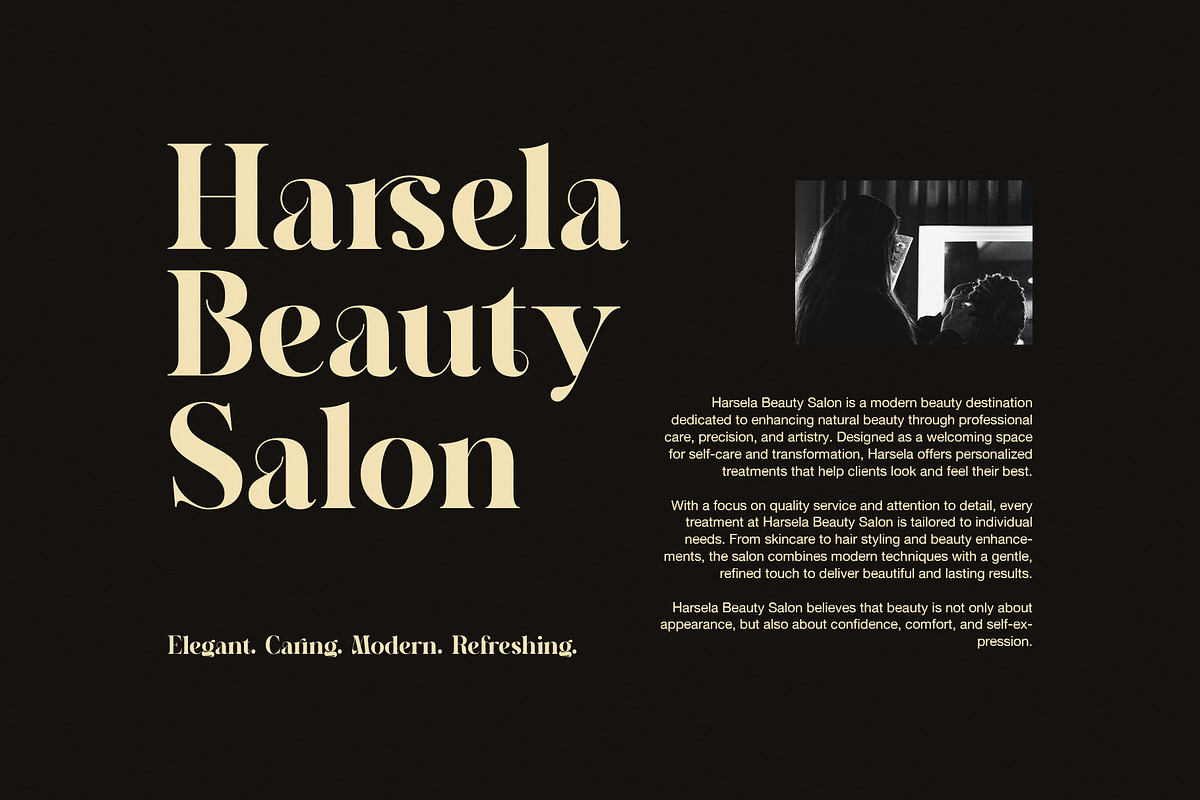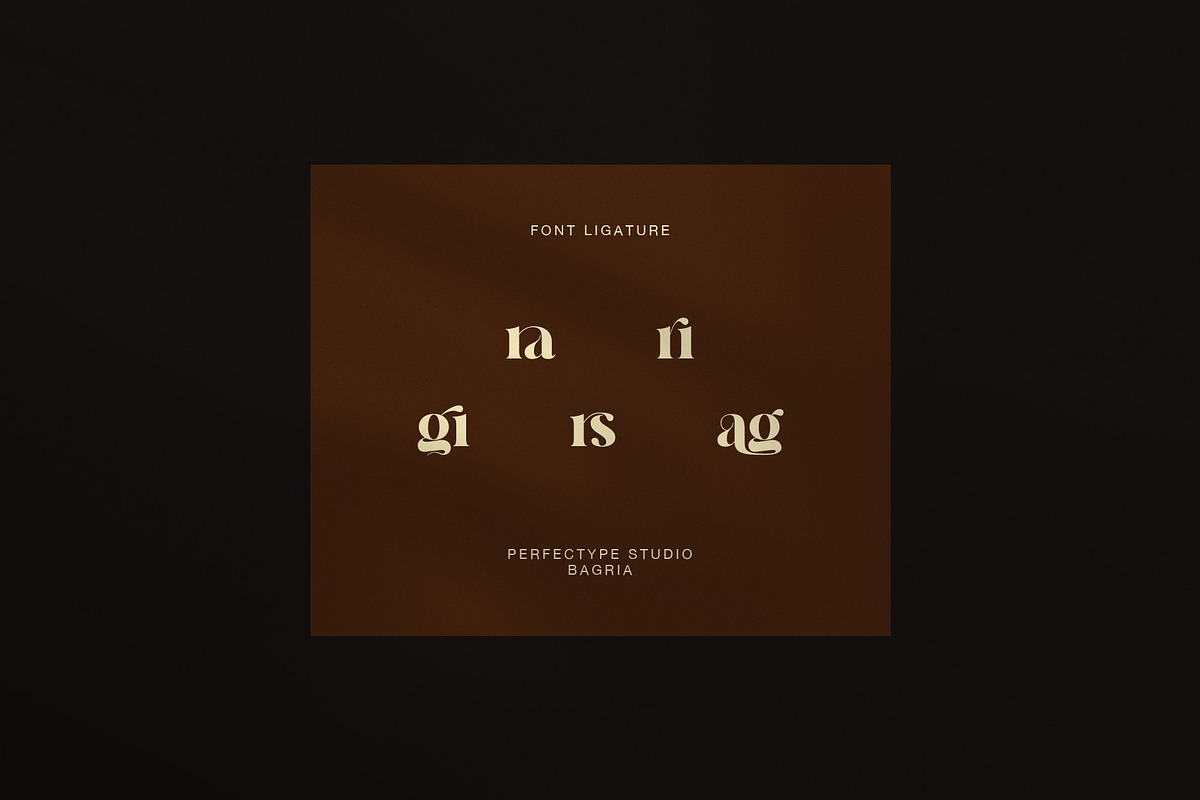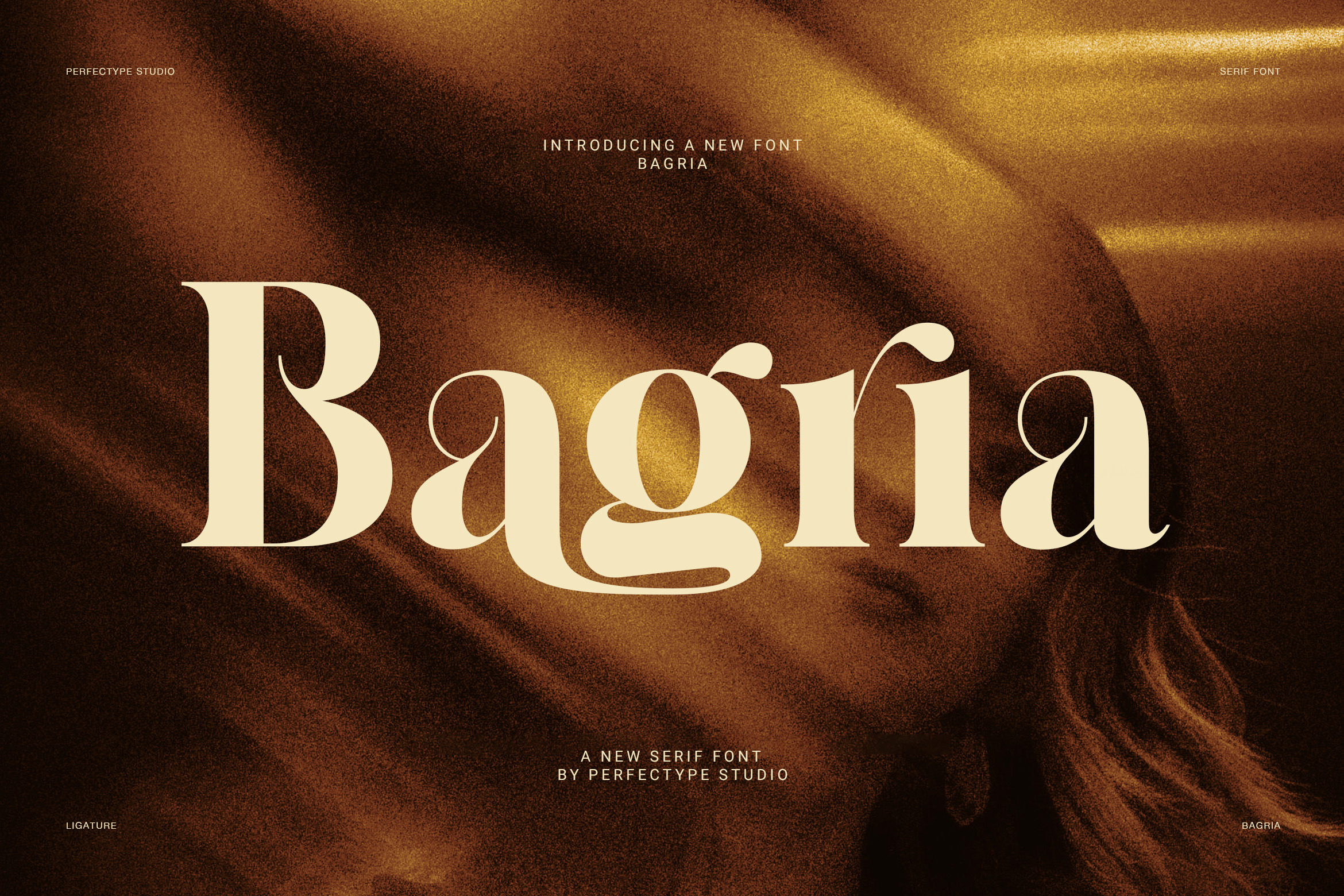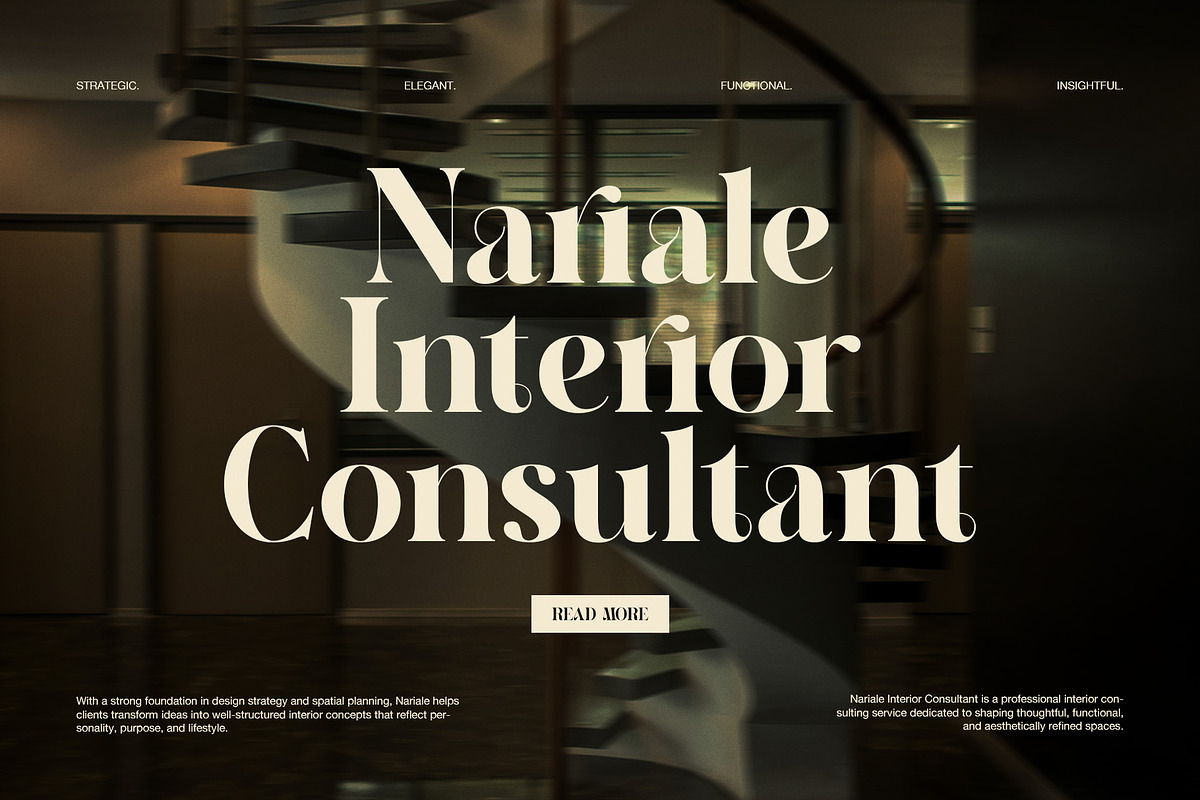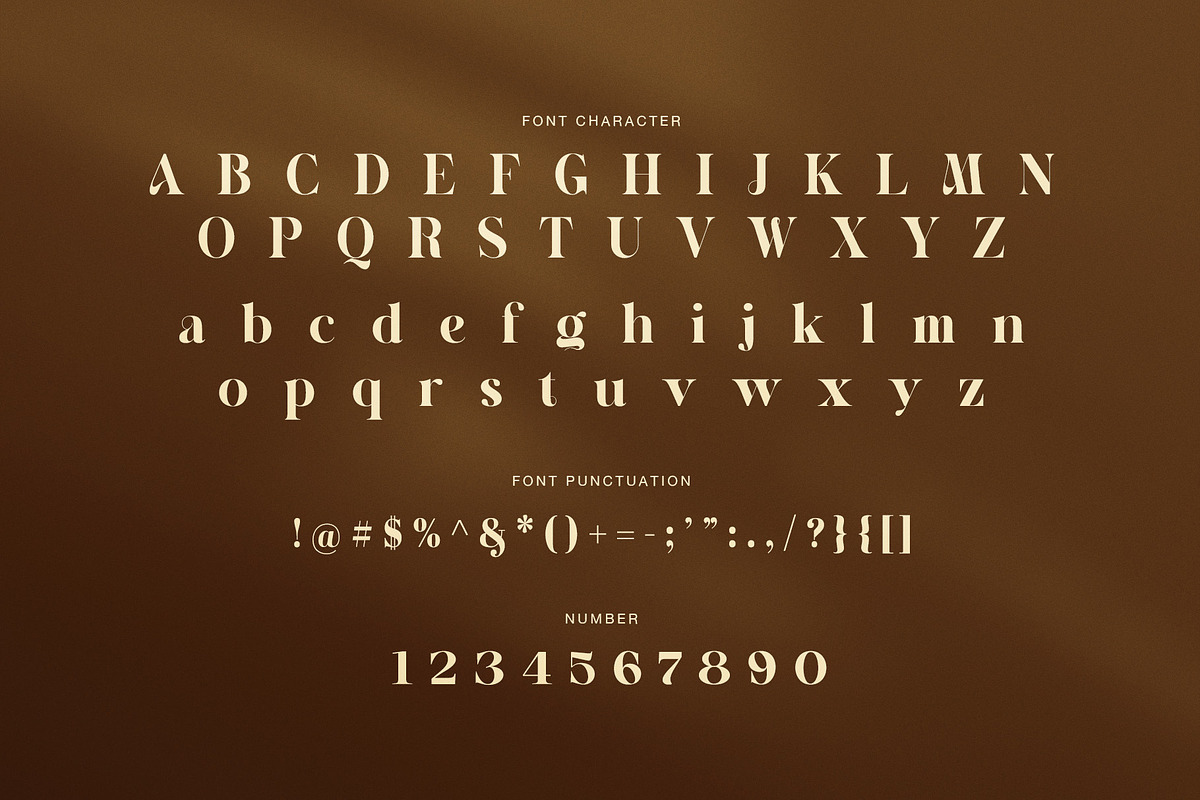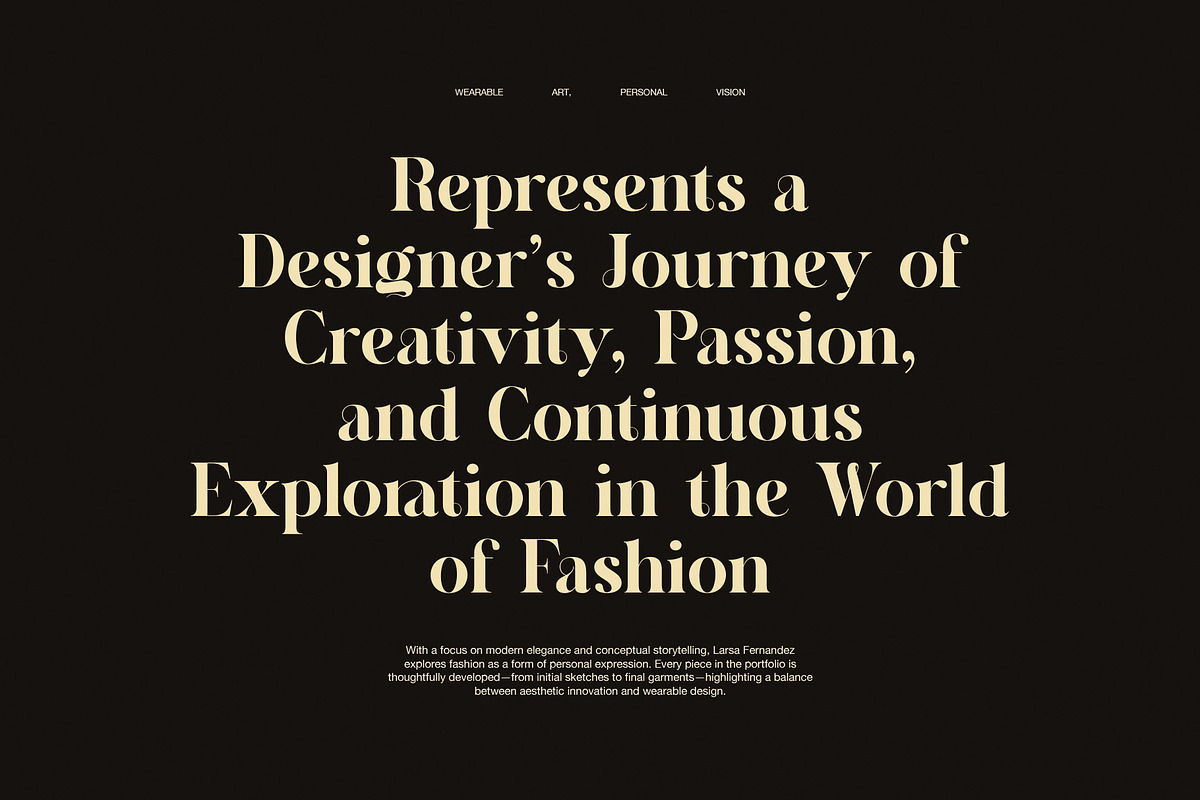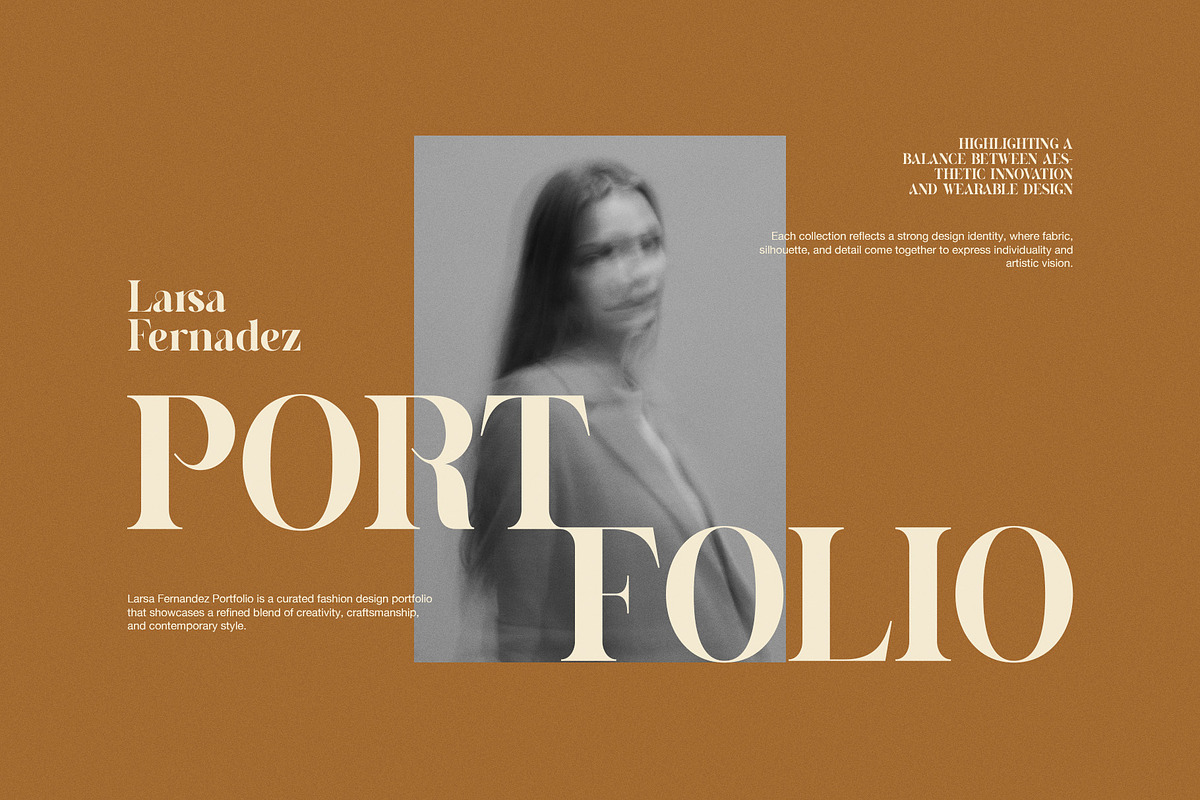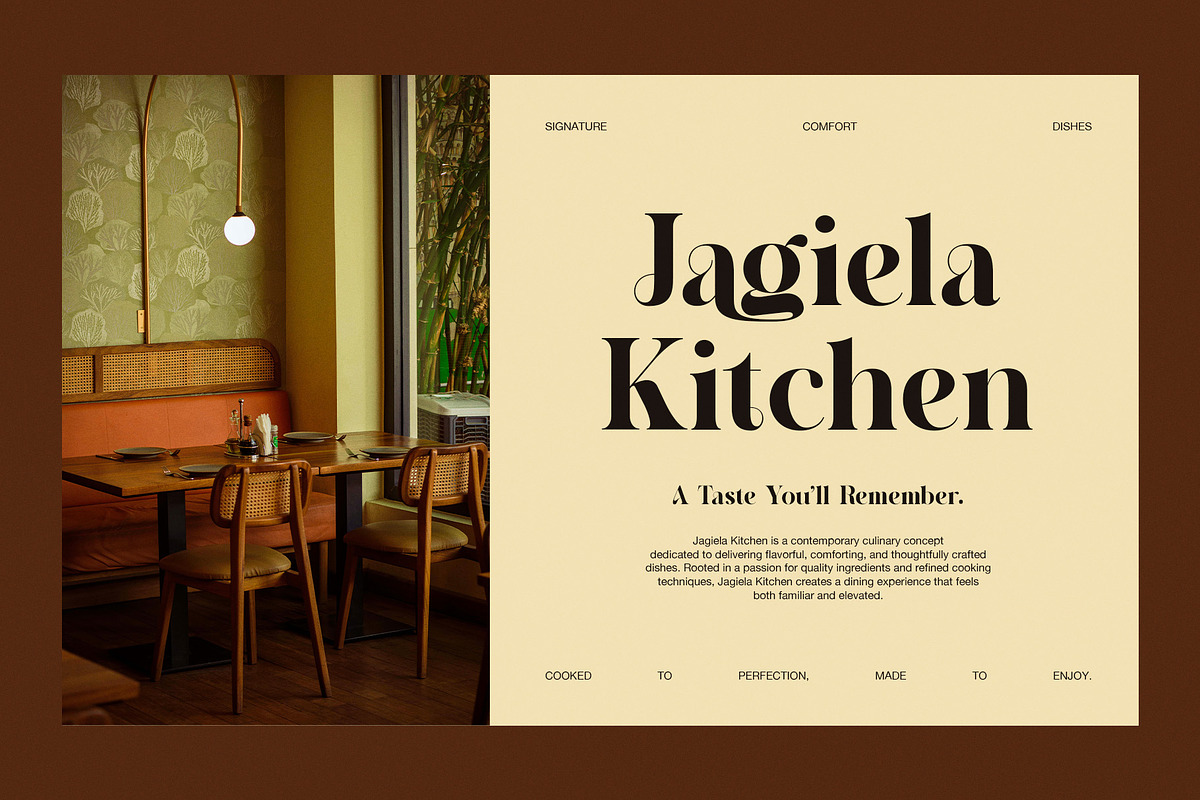
Bagria Elegant Serif Font
Bagria Elegant Serif Font is a refined display serif with a bold, graceful, and artistic personality. It blends classic serif structure with striking contrast, soft curves, and beautiful ligature detail. As a result, it feels elegant at first glance, yet it also brings a strong visual voice to every layout. This font is made for designers who want something stylish, memorable, and rich in character.
The letterforms of Bagria show a clear high-contrast style. Thick main strokes meet fine hairlines, which gives the font a polished and premium look. At the same time, several letters include smooth curves, rounded terminals, and graceful joins that make the type feel warmer and more expressive. Because of this balance, Bagria feels both classic and fresh.
Bagria performs best in large display settings. In the preview examples, it looks strong in restaurant branding, beauty salon layouts, hotel identity, interior design promotion, and fashion portfolio titles. Moreover, it also works well for emotional quotes and luxury editorial compositions. Therefore, this font is highly flexible for both commercial and creative projects.
Another key strength is its ligature support. The ligatures create smoother word shapes and give headlines a more custom appearance. In addition, the punctuation and number set keep the whole font family looking polished and consistent. Because of that, Bagria is a strong choice for logos, packaging, posters, menus, social media graphics, and premium brand systems.
Best uses for Bagria
luxury branding
logo design
editorial headlines
restaurant branding
beauty salon branding
hotel branding
interior design layouts
fashion portfolio titles
quote posters
social media graphics
Why designers will love it
Bagria Elegant Serif Font gives words a confident and stylish tone. Moreover, it helps short text feel more crafted through its elegant ligatures and dramatic contrast. While some serif fonts look too stiff, Bagria feels more fluid and expressive. However, it still keeps strong readability in display sizes.
If you need an elegant serif font for branding, headlines, and standout visual work, Bagria is a smart choice. It offers beauty, clarity, and a high-end editorial mood. In the end, Bagria brings timeless serif charm with a more artistic and modern finish.